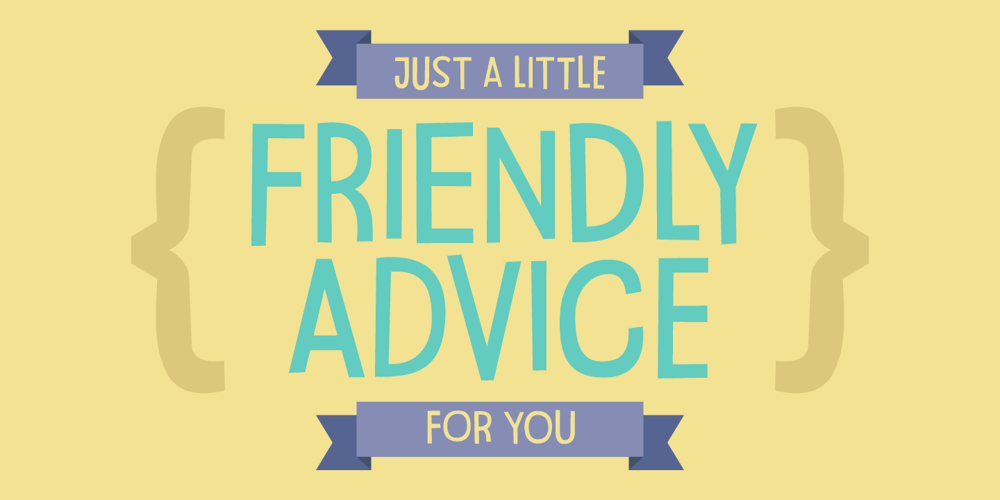
Friendly Advice Font Family was designed by Jakob Fischer and published by PizzaDude.dk. Friendly Advice contains 2 styles and family package options. Simple, legible and yet quite funky! Every letter has 5 different versions, which automatically cycles as you type!